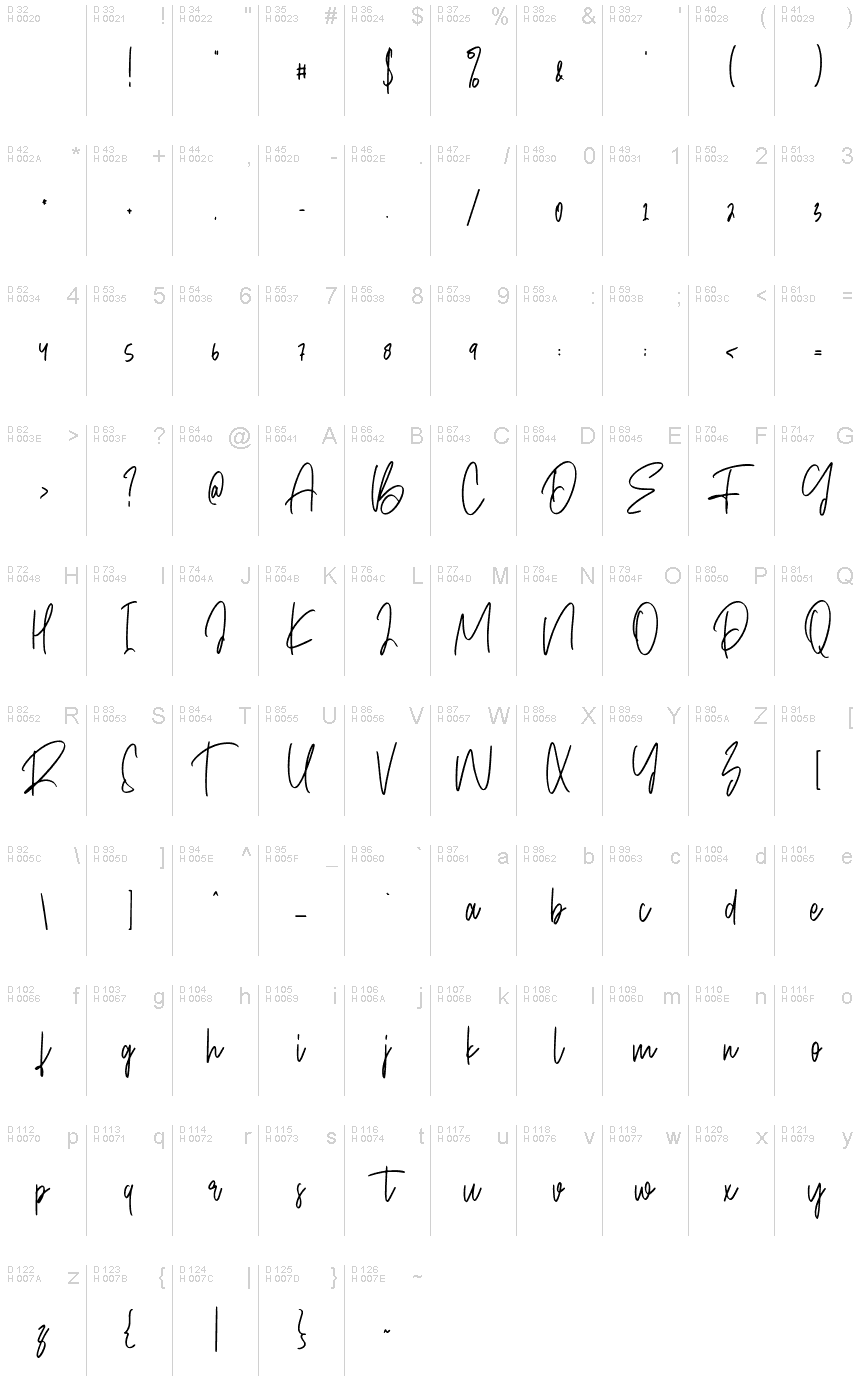
Reality Clubs
Reality Clubs, the latest creation of Maulana Creative, is a beautiful handwritten font that exudes elegance and sophistication. With a light weight and semi-condensed width, this font is perfect for projects that require a touch of finesse. Its flowing curves and delicate strokes make it an ideal choice for wedding invitations, greeting cards, and branding materials. Reality Clubs adds a personal touch to any project, making it suitable for use in journals, scrapbooking projects, and social media posts. Give your designs a unique edge with this stunning semi-condensed font that blends style with substance!